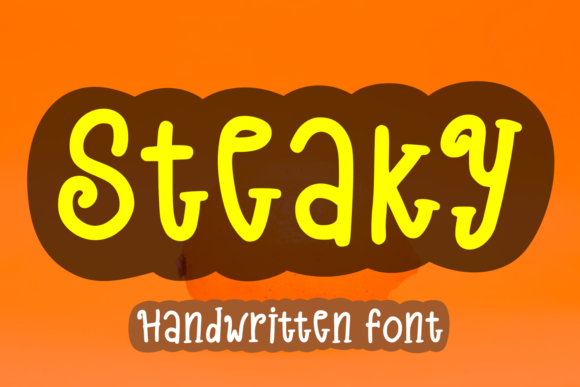
Introducing Steaky Font: The Funny, Quirky, and Cute Serif Font for Creative Projects
Are you looking for a font that can add a touch of personality to your creative projects? Look no further than Steaky Font, a funny, quirky, and cute serif font that’s perfect for a wide range of applications. With its handwriting-like characteristics, Steaky Font is ideal for projects that require a personal and playful touch.
What is Steaky Font?
Steaky Font is a unique and charming serif font that’s designed to bring a smile to your face. Its quirky and cute design makes it perfect for projects that require a bit of whimsy and personality. Whether you’re working on a children’s book, a DIY craft project, or a poster for a clothing brand, Steaky Font is sure to add a touch of fun and playfulness to your design.
Characteristics of Steaky Font
So, what makes Steaky Font so special? Here are just a few of its key characteristics:
- Handwriting-like design: Steaky Font has a handwriting-like quality that gives it a personal and unique feel.
- Serif design: As a serif font, Steaky Font features small lines or flourishes at the ends of its letters, which adds to its classic and timeless feel.
- Quirky and cute: Steaky Font is designed to be playful and fun, making it perfect for projects that require a bit of personality.
Uses for Steaky Font
So, what kinds of projects is Steaky Font suitable for? The answer is: many! Here are just a few ideas to get you started:
- Clothing and fashion: Steaky Font is perfect for clothing brands that want to add a touch of personality to their labels, packaging, or marketing materials.
- Posters and flyers: Whether you’re promoting a concert, a sale, or a special event, Steaky Font is sure to grab attention and add a bit of fun to your posters and flyers.
- Magazines and books: Steaky Font is a great choice for children’s books, comics, and other publications that require a playful and engaging design.
- Crafting and DIY projects: If you’re working on a crafting or DIY project, Steaky Font is a great choice for adding a personal touch to your labels, instructions, or other materials.
- Baby and kid projects: Steaky Font is perfect for projects that involve kids, such as children’s party invitations, nursery decor, or kids’ clothing.
Why Choose Steaky Font?
So, why should you choose Steaky Font for your next project? Here are just a few reasons:
- Unique and eye-catching: Steaky Font is a one-of-a-kind font that’s sure to grab attention and add a bit of personality to your design.
- Versatile: Steaky Font is suitable for a wide range of projects, from clothing and posters to magazines and books.
- Easy to read: Despite its quirky design, Steaky Font is easy to read and understand, making it perfect for body text and other applications where legibility is important.
Tips and Tricks for Working with Steaky Font
Here are a few more tips and tricks to help you get the most out of Steaky Font:
- Use it sparingly: Steaky Font is a bold and eye-catching font, so use it sparingly to avoid overwhelming your design.
- Pair it with other fonts: Steaky Font pairs well with other fonts, so don’t be afraid to experiment with different combinations.
- Pay attention to kerning and spacing: As with any font, pay attention to kerning and spacing to ensure that your text looks professional and polished.
In conclusion, Steaky Font is a funny, quirky, and cute serif font that’s perfect for creative projects that require a personal touch. With its handwriting-like characteristics and versatile design, Steaky Font is suitable for a wide range of applications, from clothing and posters to magazines and books. Whether you’re a designer, a crafty DIY enthusiast, or just someone who loves to have fun, Steaky Font is sure to bring a smile to your face and add a bit of personality to your design.
- What is Steaky Font? Steaky Font is a funny, quirky, and cute serif font with handwriting-like characteristics.
- What kinds of projects is Steaky Font suitable for? Steaky Font is suitable for a wide range of projects, including clothing, posters, magazines, books, crafting, DIY projects, and more.
- Is Steaky Font easy to read? Yes, Steaky Font is easy to read and understand, making it perfect for body text and other applications where legibility is important.